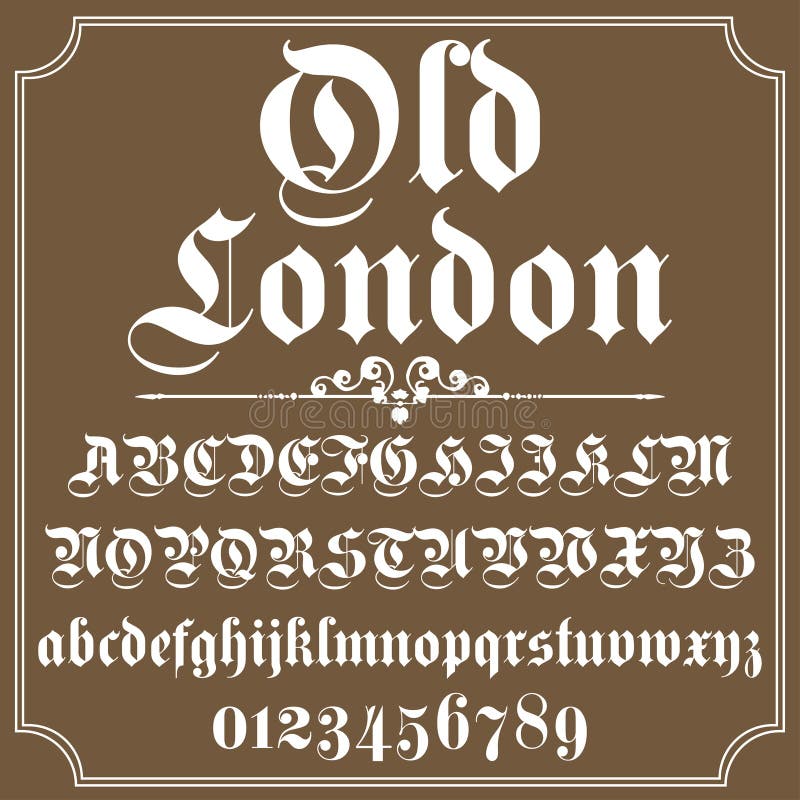
Fonts Old London
Fonts Old London - Web we present our fonts based on the medieval age, prepared for your best text. Discover and customize the font old london and other. Archive of freely downloadable fonts. Browse by alphabetical listing, by style, by author or by popularity.
Browse by alphabetical listing, by style, by author or by popularity. Web we present our fonts based on the medieval age, prepared for your best text. Archive of freely downloadable fonts. Discover and customize the font old london and other.
Archive of freely downloadable fonts. Web we present our fonts based on the medieval age, prepared for your best text. Browse by alphabetical listing, by style, by author or by popularity. Discover and customize the font old london and other.
Browse by alphabetical listing, by style, by author or by popularity. Archive of freely downloadable fonts. Web we present our fonts based on the medieval age, prepared for your best text. Discover and customize the font old london and other.
Discover and customize the font old london and other. Archive of freely downloadable fonts. Browse by alphabetical listing, by style, by author or by popularity. Web we present our fonts based on the medieval age, prepared for your best text.
Discover and customize the font old london and other. Web we present our fonts based on the medieval age, prepared for your best text. Archive of freely downloadable fonts. Browse by alphabetical listing, by style, by author or by popularity.
Web we present our fonts based on the medieval age, prepared for your best text. Browse by alphabetical listing, by style, by author or by popularity. Archive of freely downloadable fonts. Discover and customize the font old london and other.
Discover and customize the font old london and other. Browse by alphabetical listing, by style, by author or by popularity. Web we present our fonts based on the medieval age, prepared for your best text. Archive of freely downloadable fonts.
Discover and customize the font old london and other. Archive of freely downloadable fonts. Browse by alphabetical listing, by style, by author or by popularity. Web we present our fonts based on the medieval age, prepared for your best text.
Web we present our fonts based on the medieval age, prepared for your best text. Browse by alphabetical listing, by style, by author or by popularity. Archive of freely downloadable fonts. Discover and customize the font old london and other.
Browse by alphabetical listing, by style, by author or by popularity. Archive of freely downloadable fonts. Discover and customize the font old london and other. Web we present our fonts based on the medieval age, prepared for your best text.
Discover and customize the font old london and other. Web we present our fonts based on the medieval age, prepared for your best text. Archive of freely downloadable fonts.